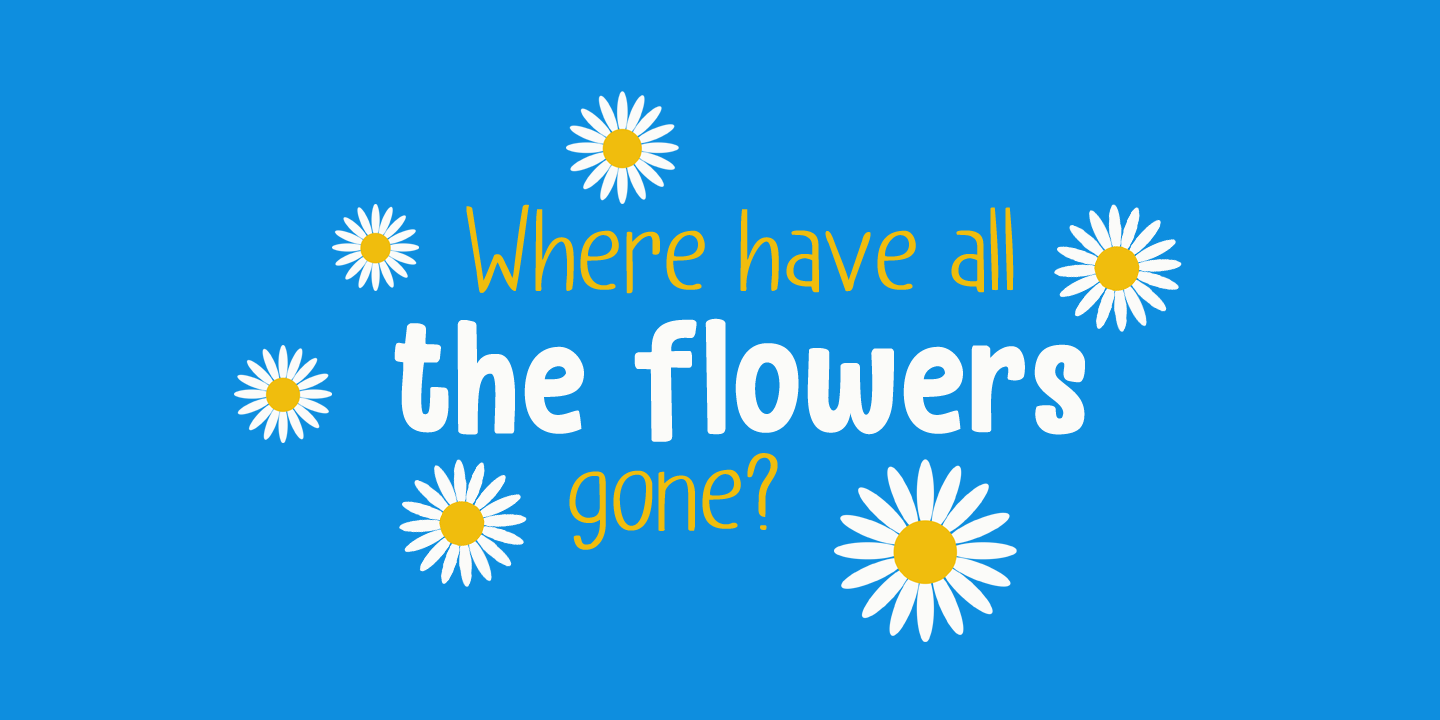
Instant Harmony Free Download
Instant Harmony Font Free Download
Instant Harmony Font demonstrates remarkable versatility across peaceful design applications including meditation app interfaces, wellness center branding, yoga studio communications, mindfulness publication designs, holistic health marketing, spa treatment menus, peaceful lifestyle brand identities, zen garden signage, harmony-focused product packaging, and tranquil event materials. This serene typeface seamlessly combines balanced aesthetics with calming visual presence, making it an invaluable resource for designers working on projects that promote inner peace, balance, and the immediate achievement of visual and emotional harmony.
What makes Instant Harmony Font particularly exciting is its masterful ability to create immediate visual balance and emotional calm through perfectly proportioned letterforms that seem to exist in perfect equilibrium, instantly bringing peace to any design composition. The font features gracefully balanced characters with harmonious spacing and gentle curves that naturally promote visual breathing and mental tranquility. Its thoughtful design incorporates principles of visual harmony with meditative aesthetics, creating perfect balance between contemporary functionality and timeless peace. The typeface's ability to convey both modernity and serenity makes it perfect for brands seeking to provide instant calm while maintaining professional credibility and contemporary relevance. Each character has been carefully crafted to maximize peaceful impact while ensuring excellent readability across wellness applications, from intimate meditation guides to large-scale harmony-focused installations.
The Instant Harmony Font family encompasses balanced variations including Ultra Light, Light, Regular, Medium, and Bold weights, each maintaining the core harmonious aesthetic while offering different levels of peaceful presence and calming intensity. The family also features extended versions for expansive headline treatments and condensed styles for space-conscious tranquil applications. Special harmony cuts may include outline variants that enhance the balanced character, flowing script versions that capture meditative movement, and zen-inspired styles that amplify the font's peaceful nature for premium wellness branding and spiritual communication materials.
Wellness professionals consistently choose Instant Harmony Font Free Download for projects requiring authentic peaceful appeal and immediate calming communication. This exceptional typeface has gained recognition in the wellness community for its ability to instantly create emotional balance and promote feelings of tranquility through expertly crafted harmonious typography. The font's specialized OpenType features include peaceful alternates, harmony ligatures, and wellness symbols that support comprehensive mindfulness branding and tranquil communication needs.
Whether you're developing wellness brand identities, creating meditation applications, designing spa materials, or crafting peaceful lifestyle communications, Instant Harmony Font delivers outstanding results. Its harmonious aesthetic makes it particularly appealing to meditation centers, wellness practitioners, spa resorts, mindfulness apps, and lifestyle brands seeking to communicate instant peace, emotional balance, and the immediate achievement of inner harmony through their visual identity.
The font's technical specifications ensure optimal performance across all wellness applications while preserving its balanced peaceful character. It includes comprehensive character encoding that supports international wellness markets, making it suitable for global harmony brands and multilingual mindfulness projects. The careful optimization guarantees serene rendering across various wellness media, maintaining the font's calming qualities whether displayed on meditation platforms or printed on tranquil wellness materials.
Professional designers value Instant Harmony Font's ability to convey immediate peace and emotional balance while maintaining commercial effectiveness and brand clarity. Its harmonious presence creates instant feelings of calm and well-being while remaining highly functional for comprehensive wellness branding systems. The font's harmony-inspired design helps organizations establish immediate trust with wellness-focused audiences while communicating the promise of instant tranquility, emotional balance, and the beautiful peace that comes from achieving perfect harmony in both design and life.